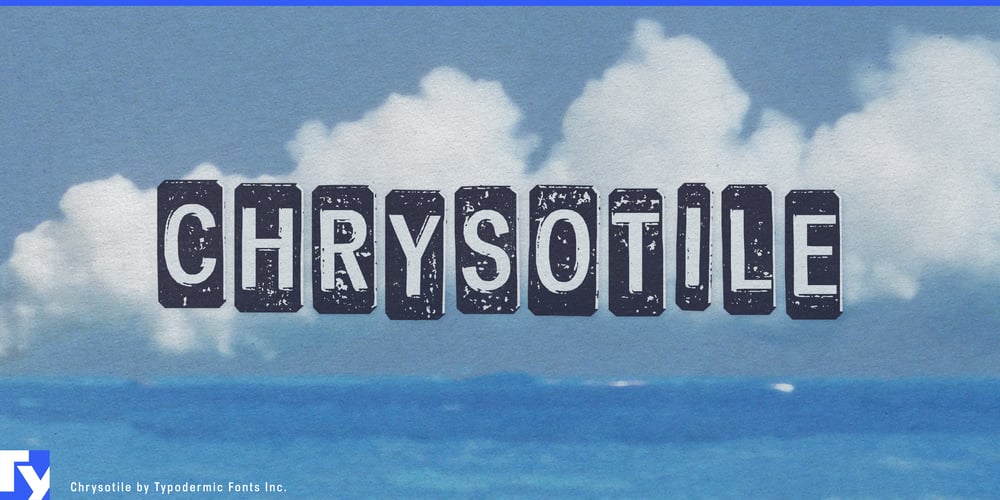
Chrysotile Font Family was designed by Ray Larabie and published by Typodermic. Chrysotile contains 1 styles and family package options. Forge your message with Chrysotile, a typeface that hammers convention into submission. Born from the crucible of industrial design, this font melds rusty metal tiles with spartan block lettering to create a visual language as raw and uncompromising as a steel foundry.Each character stands as a testament to resilience, its grainy texture and weathered edges telling tales of endurance against the elements. With custom letter pairings that automatically forge connections, your words take on the authenticity of hand-crafted metalwork. This typeface doesn’t whisper—it clangs and resonates. From gritty urban branding to hard-hitting headlines, Chrysotile infuses your designs with the spirit of anvil and forge. It’s the perfect choice for those who dare to break the mold, who seek to leave an indelible mark on their audience.Chrysotile’s industrial strength isn’t confined by borders. Like a well-oiled machine, it operates fluently across a vast array of Latin-based writing systems. Whether you’re crafting a manifesto in Māori or designing signage in Swahili, Chrysotile ensures your message retains its rugged power.Don’t let your typography be another cog in the machine. Choose Chrysotile and watch as your designs transform from mere words into monuments of industrial might. It’s time to metal up your message—let Chrysotile be the alloy that strengthens your creative vision.